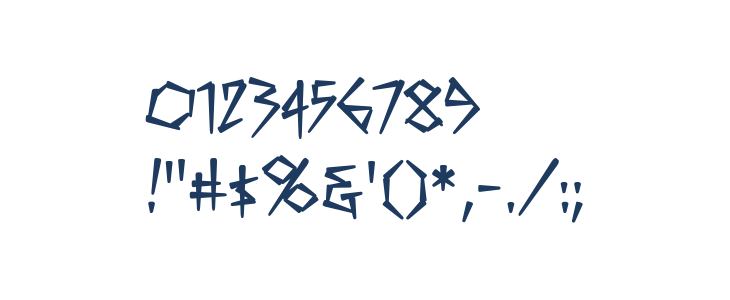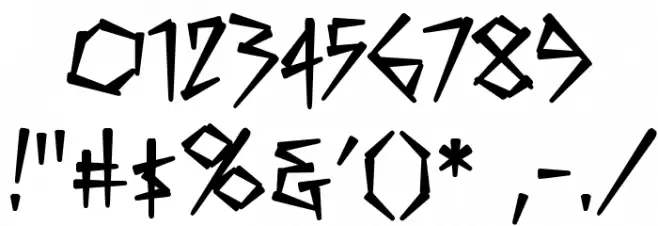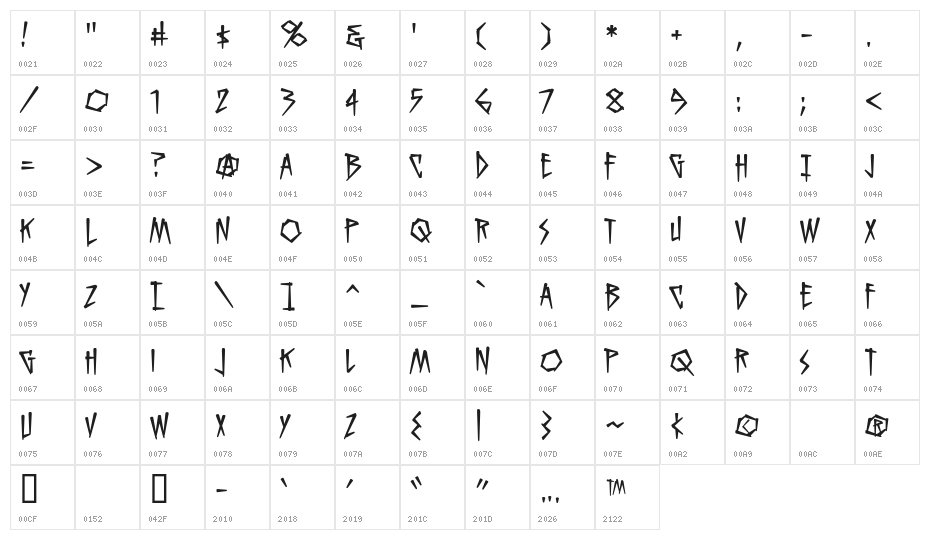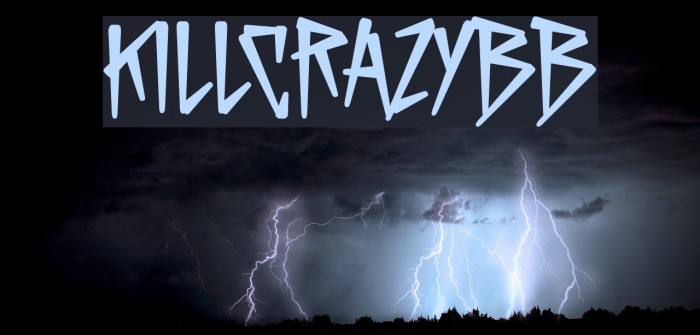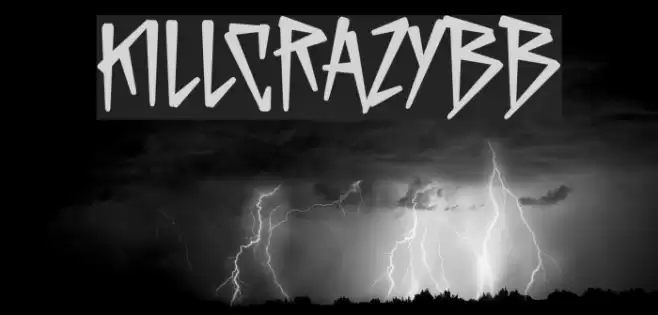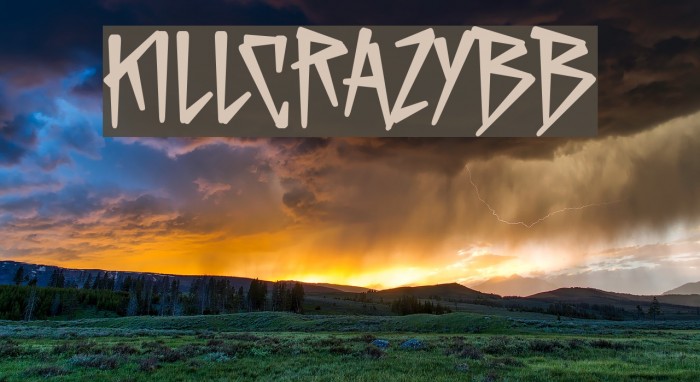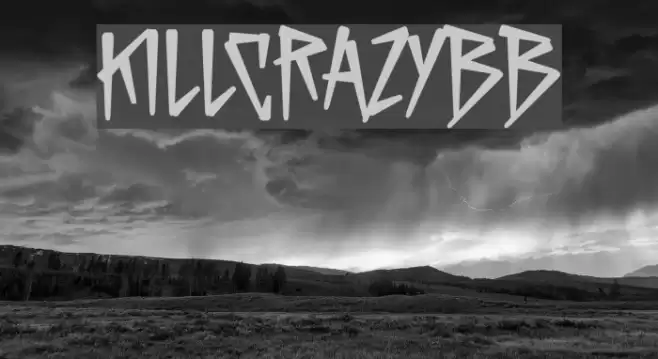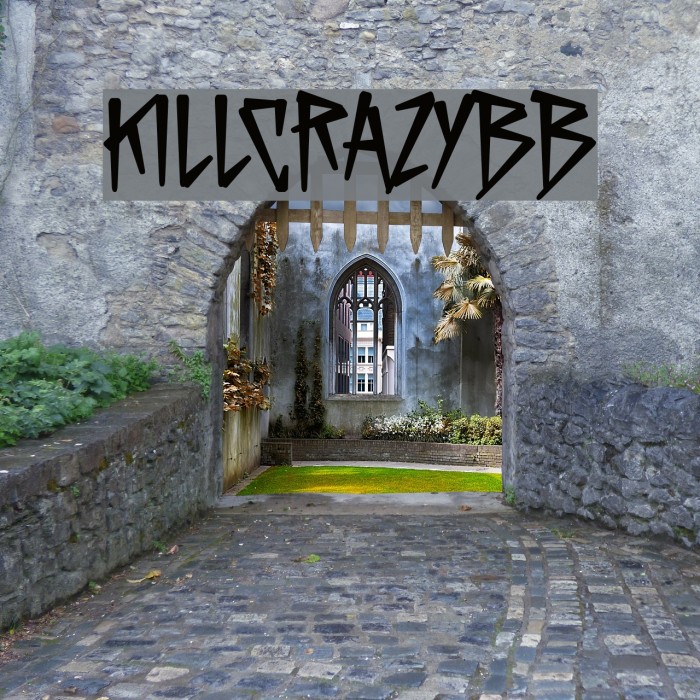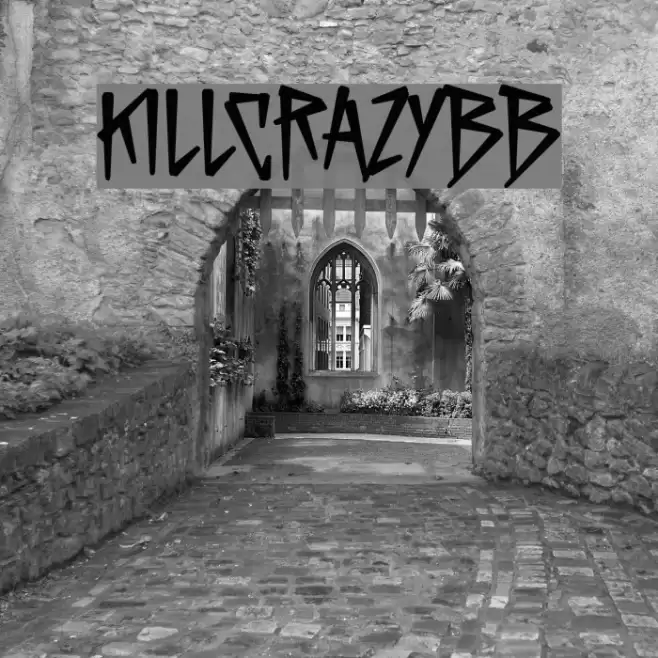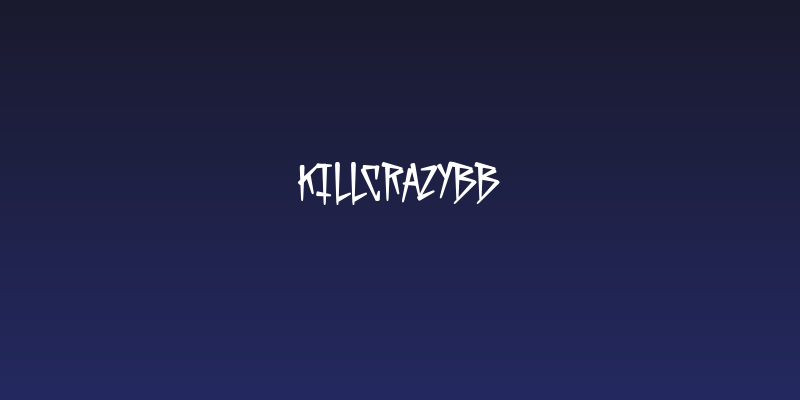
KillCrazyBB Font
KillCrazyBB Description
This font features a bold, angular design with a distinctly edgy and rebellious aesthetic. The characters are sharply pointed and irregular, giving off a graffiti-like vibe. The uppercase and lowercase letters maintain a consistent style, with exaggerated angles and strokes that create a sense of movement and energy. Numbers and special characters follow the same design principles, ensuring a cohesive look across all elements. The font's unique style makes it stand out, ideal for projects that require a bold statement.
Overall StyleModern, Edgy
Proposed ProjectsIdeal for music album covers, streetwear branding, skateboarding graphics, and edgy poster designs.